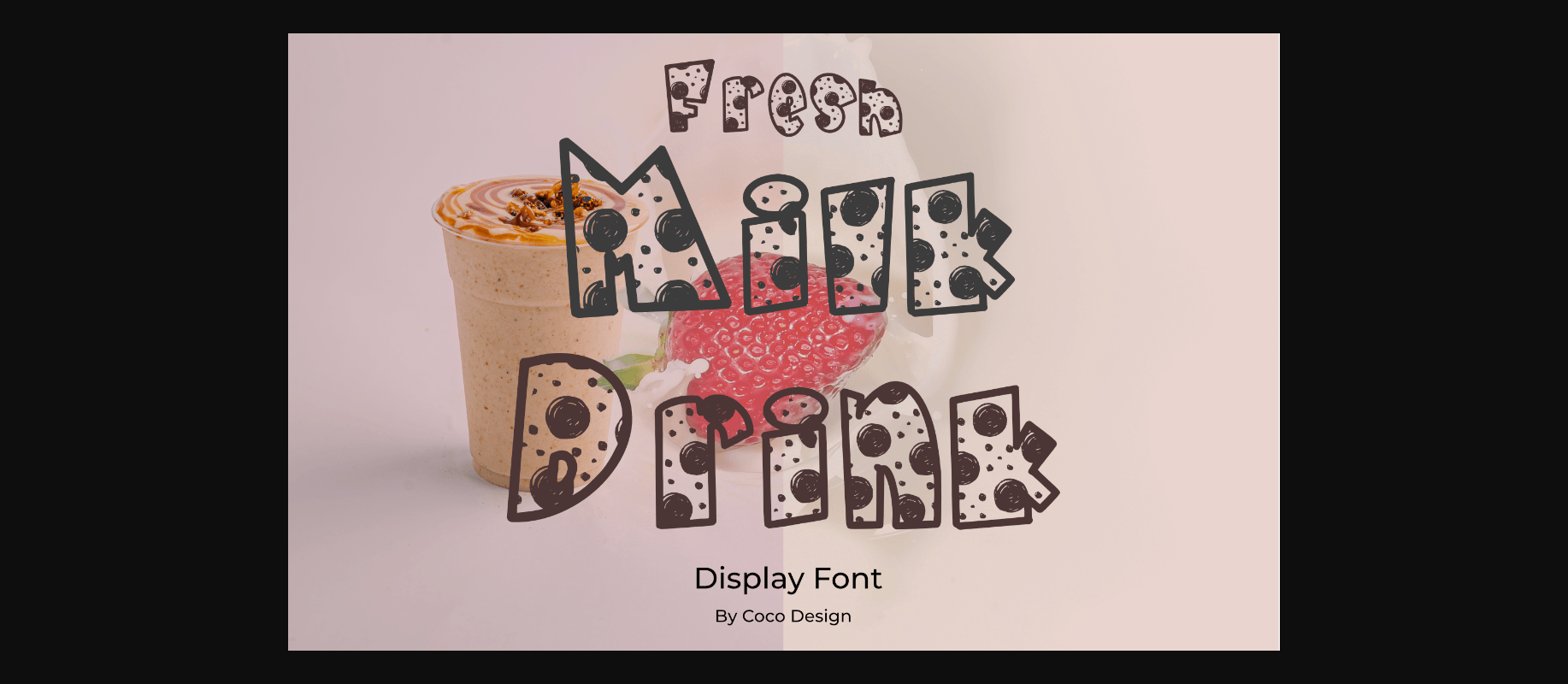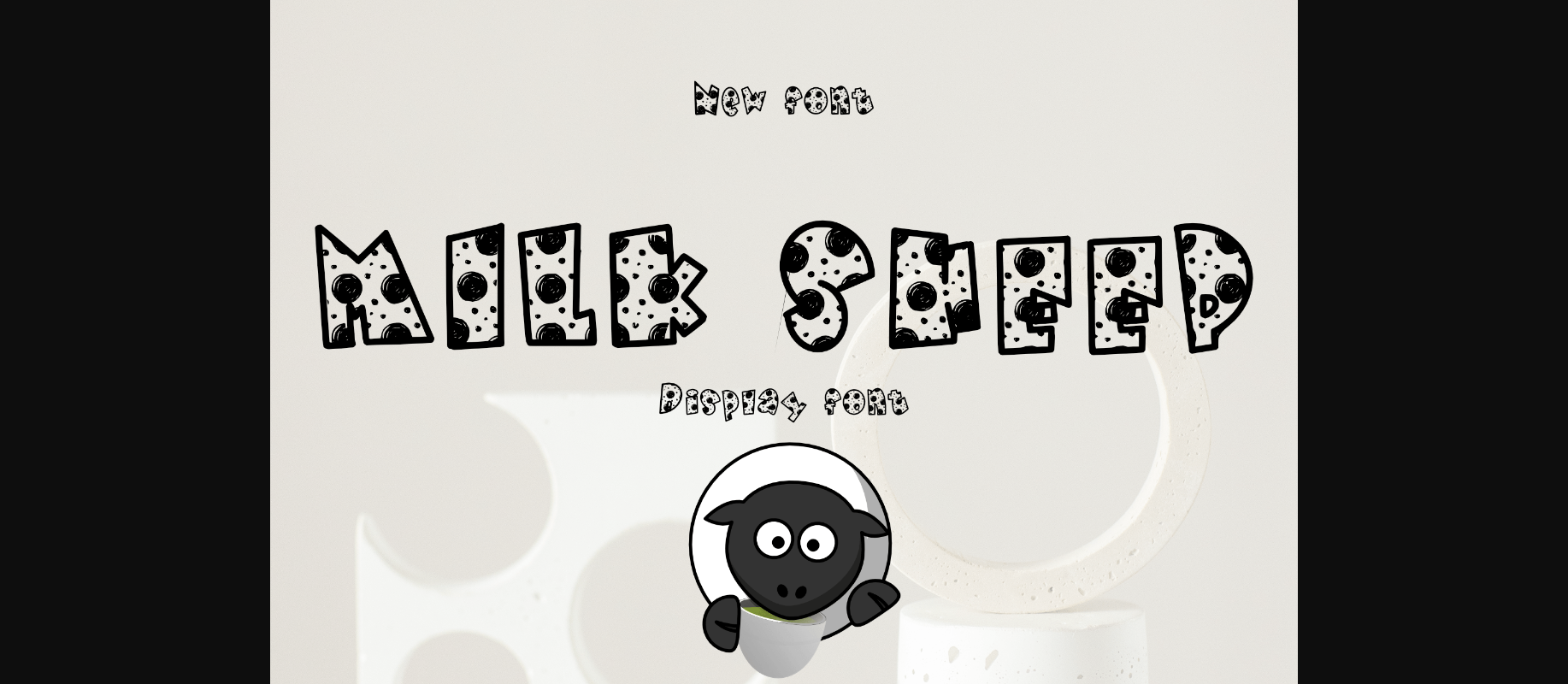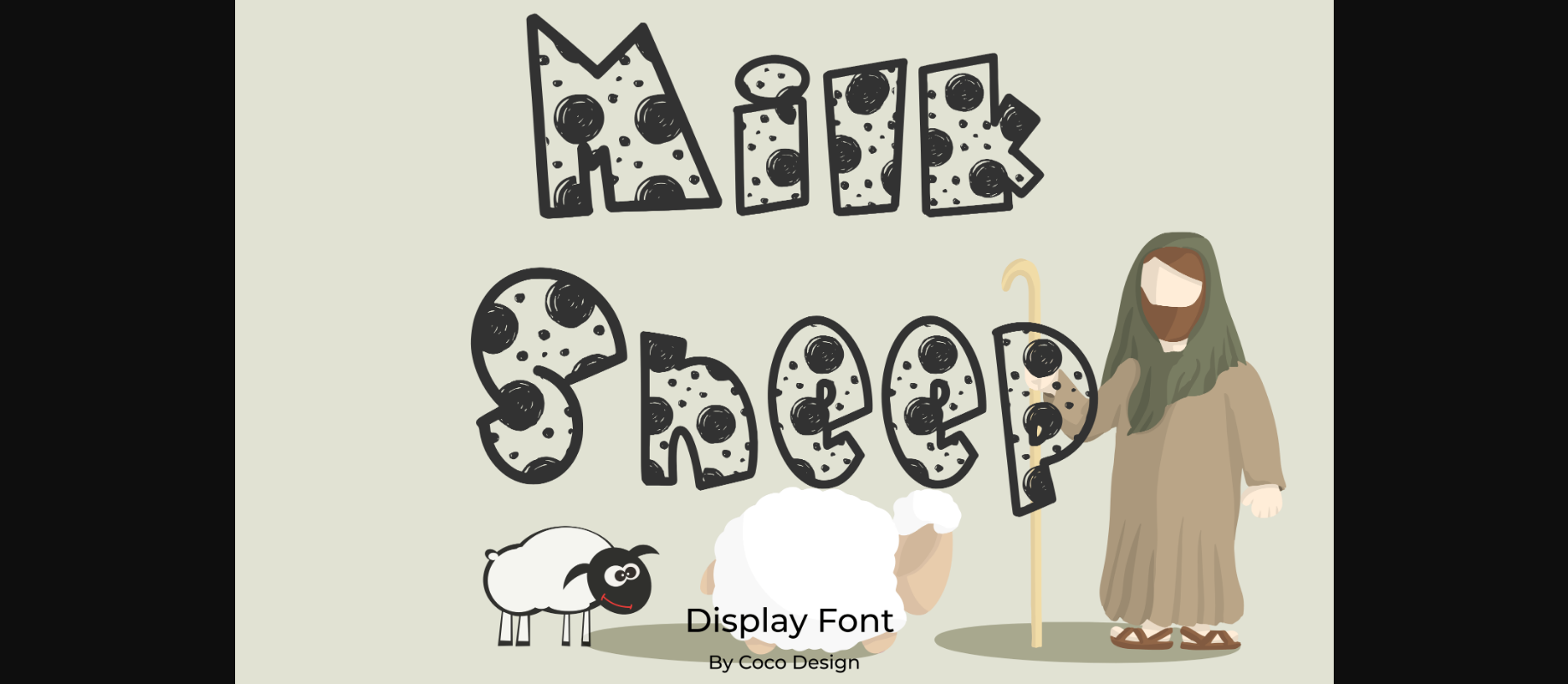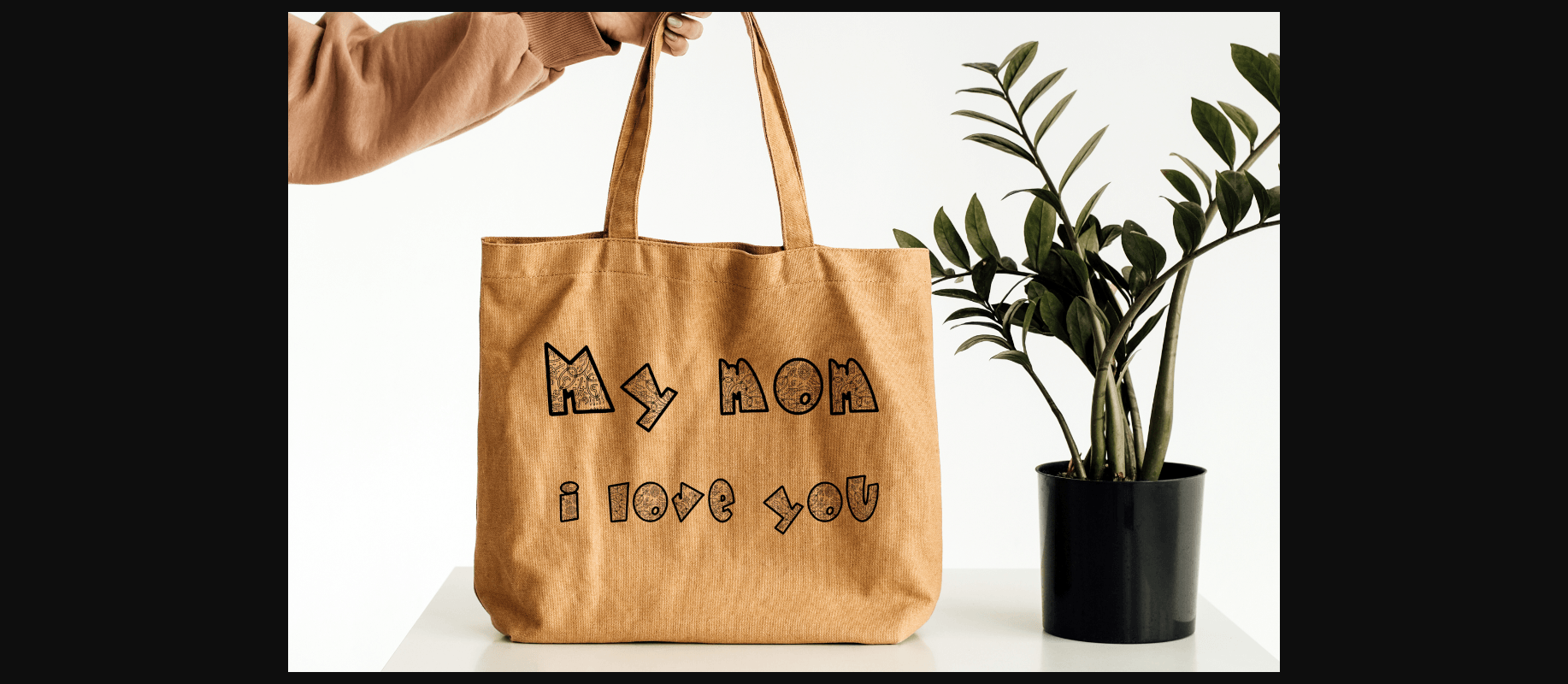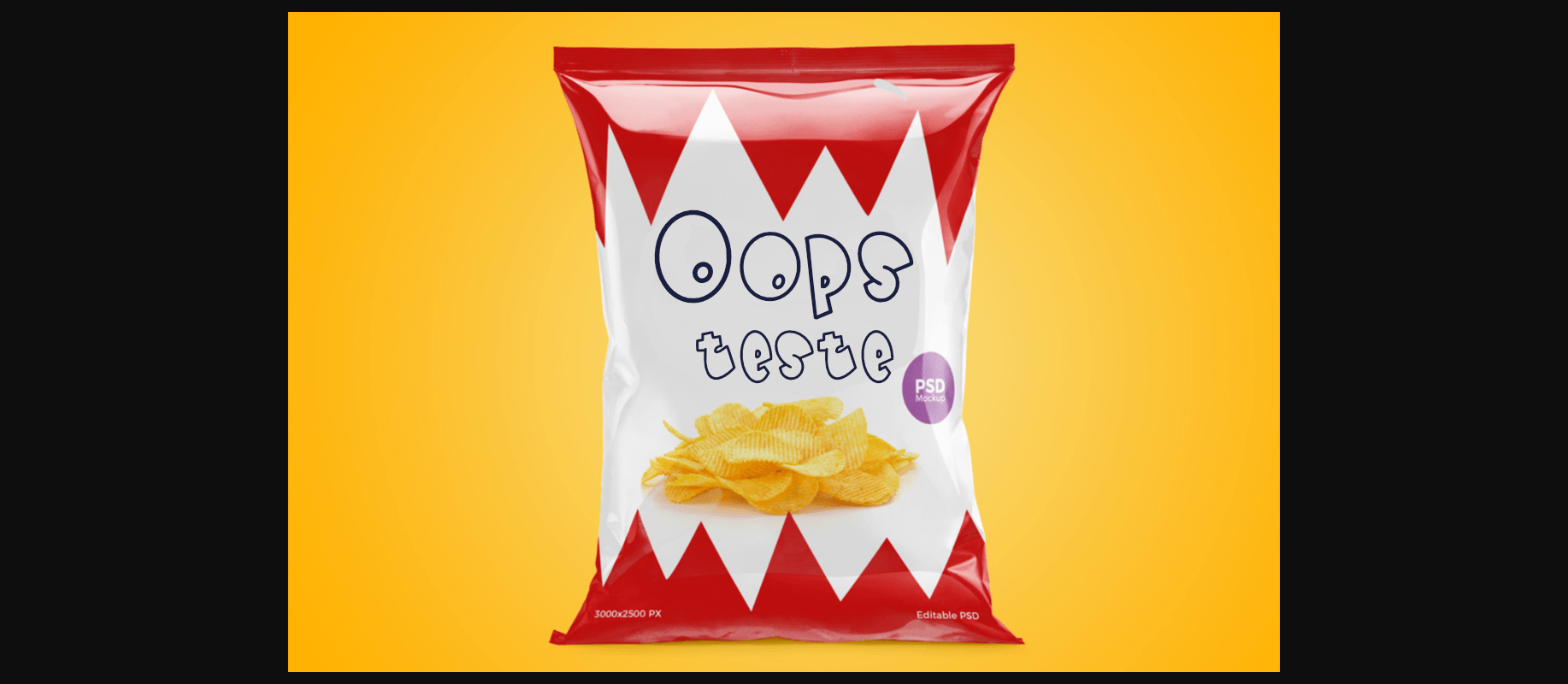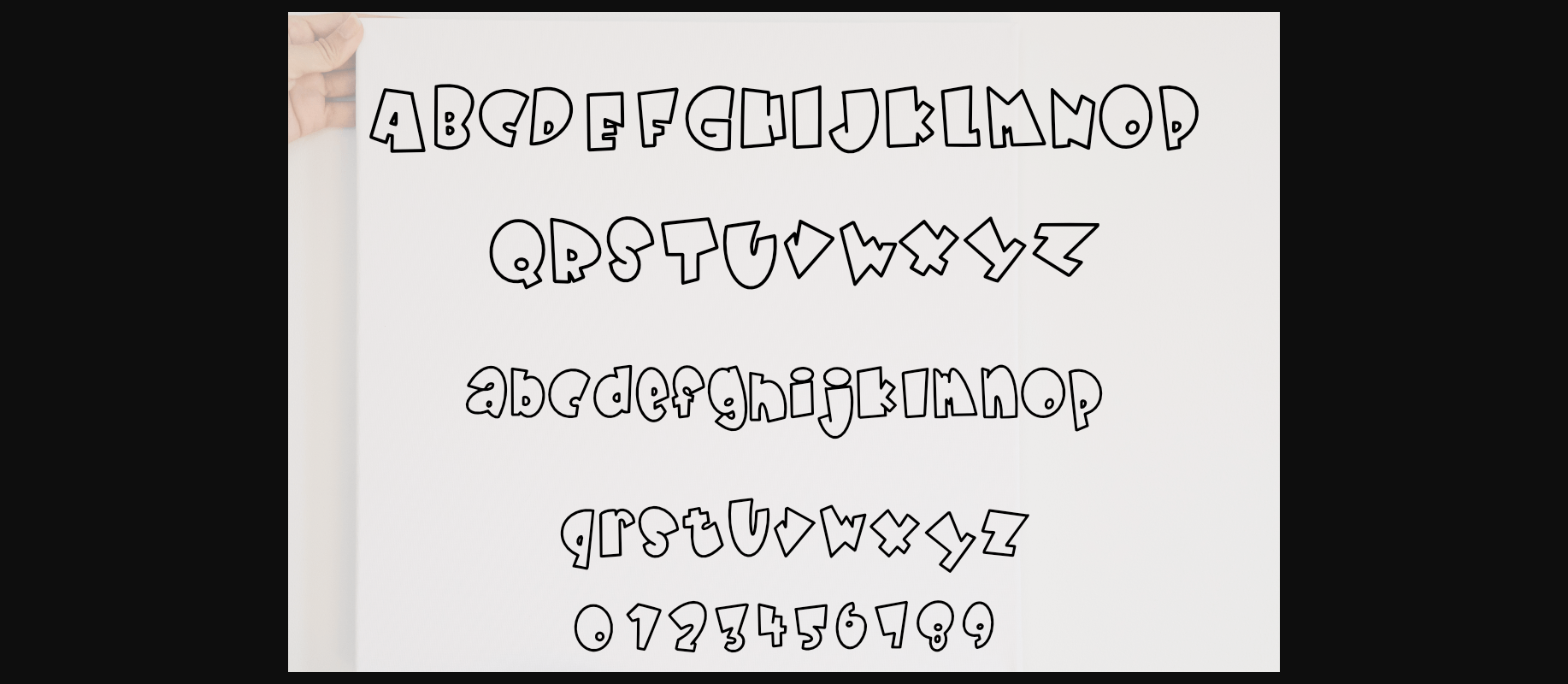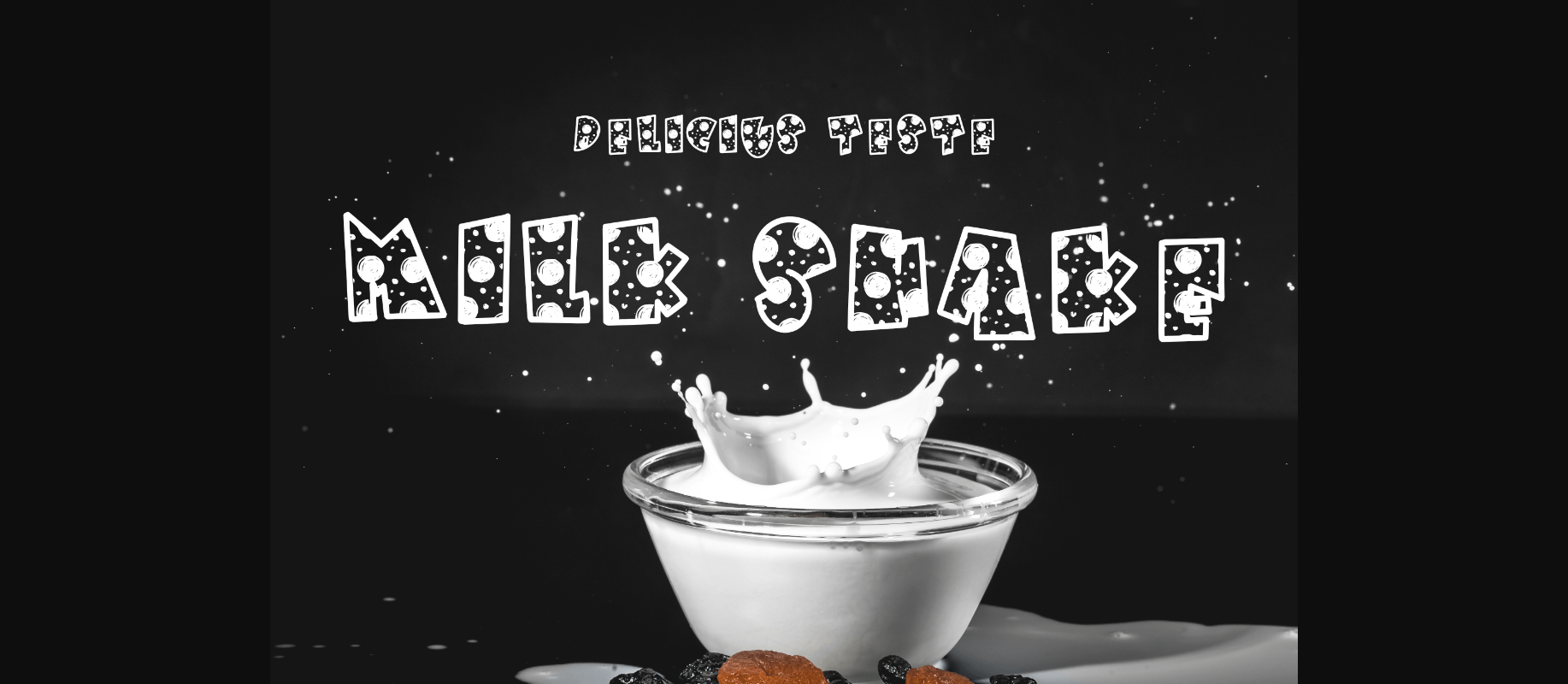
Milk Sheep Font
About Milk Sheep Font
Milk Sheep is a cute and fun decorative font. It embodies playfulness and authenticity and is the perfect choice for various projects such as blog posts, logos, branding, ads, invitations, greeting cards, planners, photo albums, decorations, and much more. Add it to any of your designs, and enjoy the results!